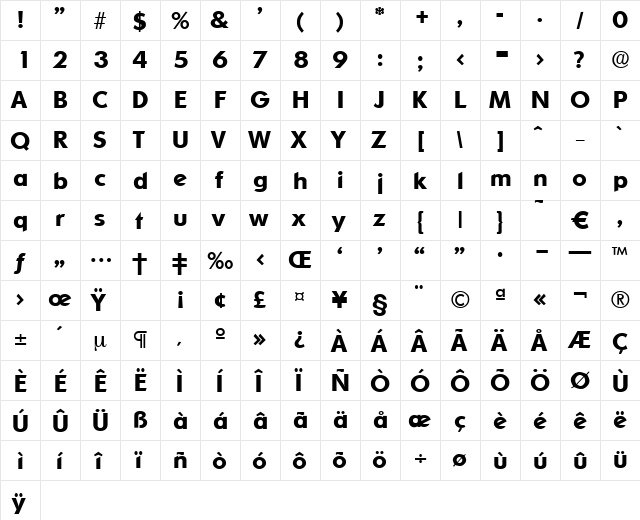
Ornitons-DemiBold Regular
Design Context for Ornitons-DemiBold Typeface
Ornitons-DemiBold is a composed and adaptable typeface that performs quietly and consistently across a wide range of design contexts. Its bold stroke weight gives it real presence on the page.